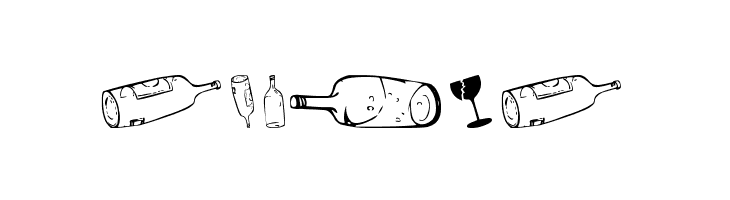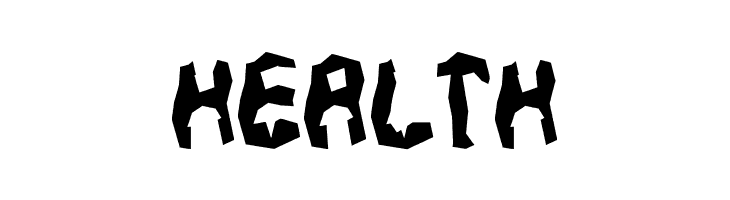
A dot matrix style font with a digital and modern aesthetic.
A bold, rounded font with a modern and approachable style.
A futuristic, geometric font with sharp angles and a mechanical feel.
A bold, geometric font with framed characters, ideal for modern and tech designs.
A decorative font with characters illustrated as various alcoholic beverages.
A bold, jagged font with a rugged, hand-cut appearance.